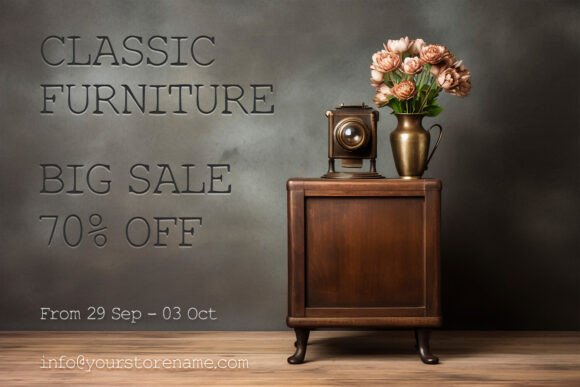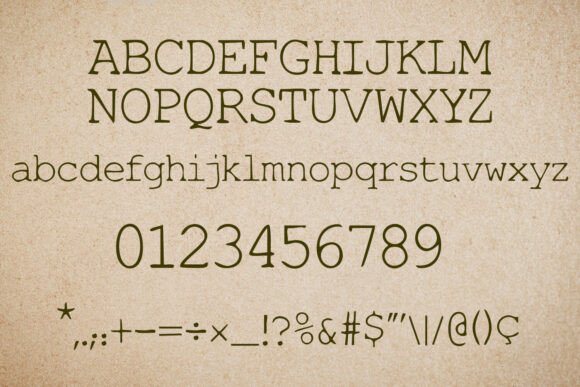
Thin Typewriter Font
Bring a nostalgic touch to your designs with this typewriter font. Featuring a distressed and grunge texture, this vintage typeface captures the charm of classic retro typewriters. Perfect for branding, posters, logos, stationery, and print projects, this rustic font adds an antique and historical feel. Ideal for steampunk, newspaper, and aged paper effects, this serif font is compatible with Adobe, Canva, and other design software. Download now to enhance your creative work with a timeless handmade look.